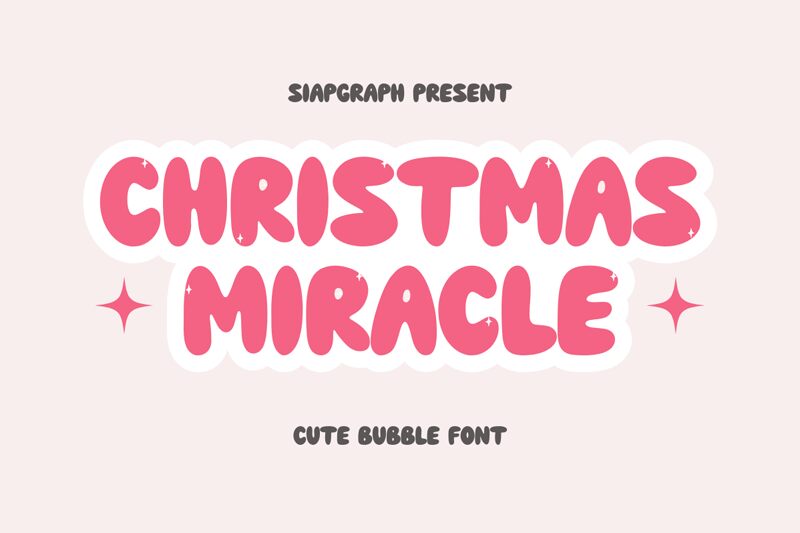
Christmas Miracle font by Siapgraph is a free cartoon font ideal for personal use. The design channels a whimsical and bubbly vibe that effortlessly captures a cheerful, welcoming energy. Bringing a friendly and playful character to any text, it’s a perfect addition to projects that call for a youthful, vibrant, and modern touch. Every letter in this eye-catching typographic design contributes to a warm, informal atmosphere that is hard to replicate.
Designed for posters, ads, packaging, books, comics, social media, story posts, websites, greeting cards, and other printed or digital materials, the font will breathe life into children’s oriented projects. Titles, headings, and other text in bigger sizes would benefit from the font’s charming handwritten cartoon style.